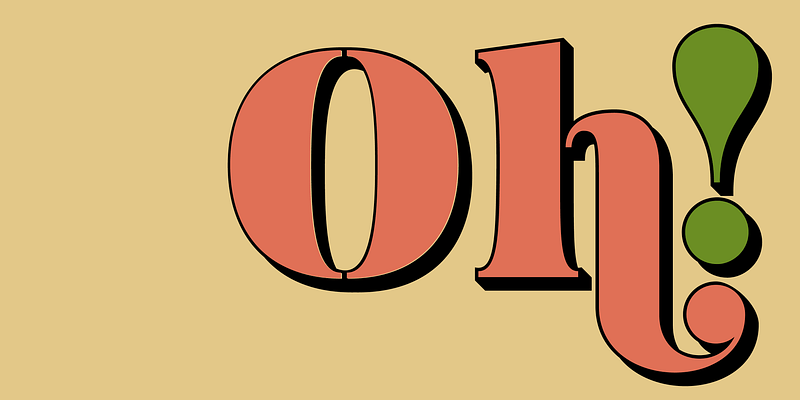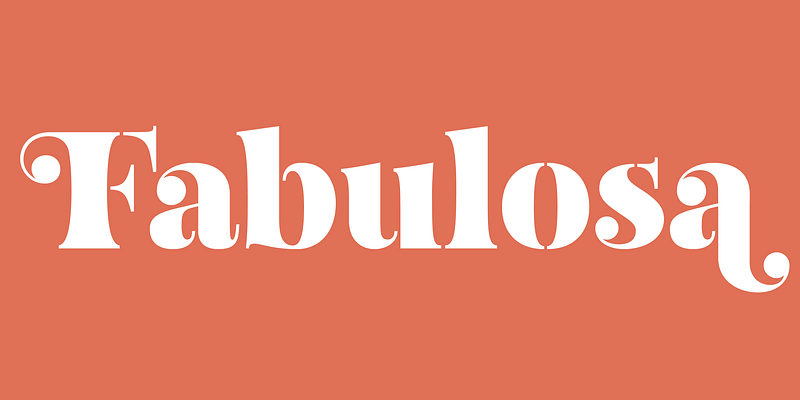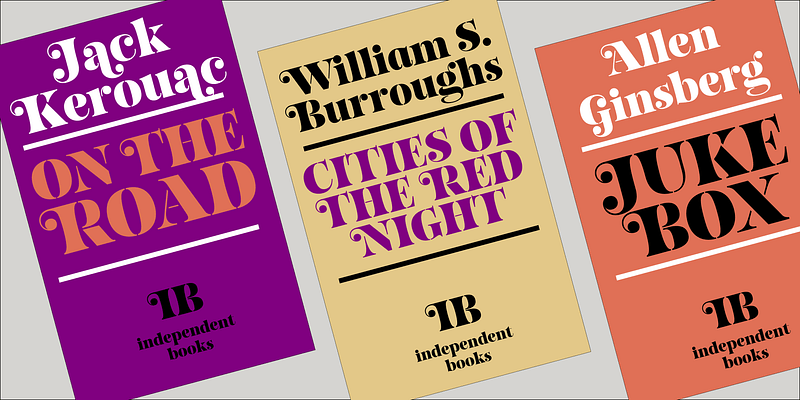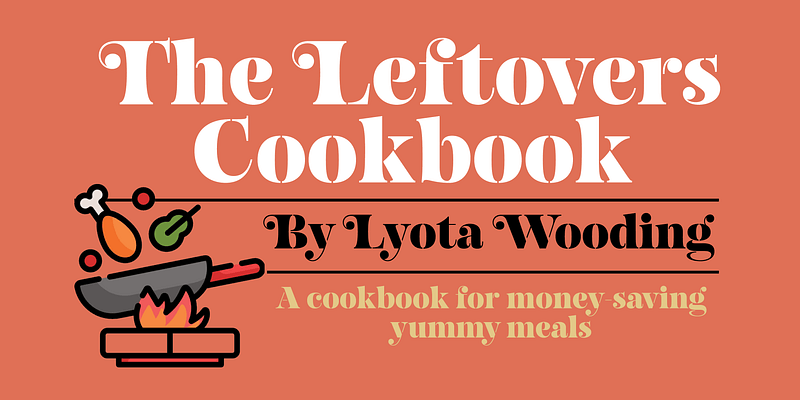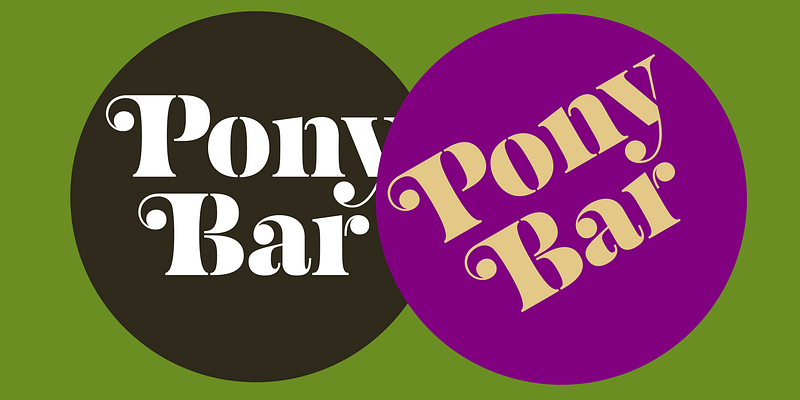
Fabulosa embodies a unique vision, merging historical influences from the ‘fat face’ typography style and the flair of Ed Benguiat’s Caslon Black Swash, designed for Photo Lettering, Inc. in the 1960s. The ‘fat face’ style, with its exaggerated strokes, was pioneered by typefounder Robert Thorne (1753–1820) in the early 19th century. Thorne’s innovation evolved modern type styles with strong contrast and heavy serifs.
Caslon Black Swash, a vivid representation of mid-20th-century typographic creativity, features swashes and decorative flourishes that evoke nostalgia.
Inspired by these styles and her love for stencils, Laura created Fabulosa. Her vision was to blend the retro with the fantastical, adding a touch of glamour. Fabulosa stands out as a timeless and contemporary statement piece, perfect for projects that evoke stylish nostalgia and make a bold visual impact, from high-fashion magazines to quirky indie film posters.